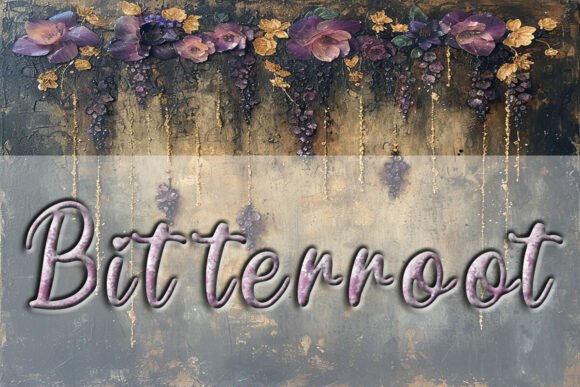
Discover the Charm of Bitterroot Font: Elevate Your Designs with a Touch of Whimsy
I’ll never forget the time I was working on a branding project for a local coffee shop. My client wanted a font that was both rustic and elegant, but I was struggling to find the perfect fit. That’s when I stumbled upon the Bitterroot Font, and it completely transformed my design. The unique blend of curves and lines breathed new life into the project, and my client was thrilled with the result. In this article, I’ll share my love for the Bitterroot Font, its features, and how you can use it to elevate your designs.
An Honest Review of Bitterroot Font
• ✨ Unique and eye-catching design that’s perfect for branding and advertising
• ✅ Highly versatile and can be used for a wide range of design projects, from t-shirts to magazine layouts
• 💫 Beautifully crafted with attention to detail, making it a joy to work with
• 📚 Extensive character set, including OpenType features and glyphs, allowing for endless creative possibilities
While I adore the Bitterroot Font, there are a few minor quirks to be aware of:
• 🤔 Some users may find the font a bit too ornate for very small text sizes or body text
• ⚠️ Limited availability of certain special characters, which may require additional design workarounds
The Story Behind Bitterroot Font
The Bitterroot Font was designed by a talented typographer who drew inspiration from the natural world. Growing up in a small town surrounded by rolling hills and vast landscapes, the designer developed a deep appreciation for the beauty of handwritten lettering. After years of experimenting with different styles and techniques, the Bitterroot Font was born – a unique blend of elegance and whimsy that’s perfect for a wide range of design projects.
What is the Bitterroot Font best suited for? The Bitterroot Font is highly versatile and can be used for a wide range of design projects, including branding, advertising, t-shirts, stickers, and more.
Is the Bitterroot Font available in different styles or weights? Currently, the Bitterroot Font is available in a single style. However, the designer may release additional variations in the future.
In conclusion, the Bitterroot Font is a captivating and versatile font that’s perfect for designers, crafters, and creative hobbyists. With its unique blend of elegance and whimsy, it’s sure to elevate your designs and add a touch of personality to your projects. Whether you’re working on branding materials, social media graphics, or illustrations, the Bitterroot Font is an excellent choice.